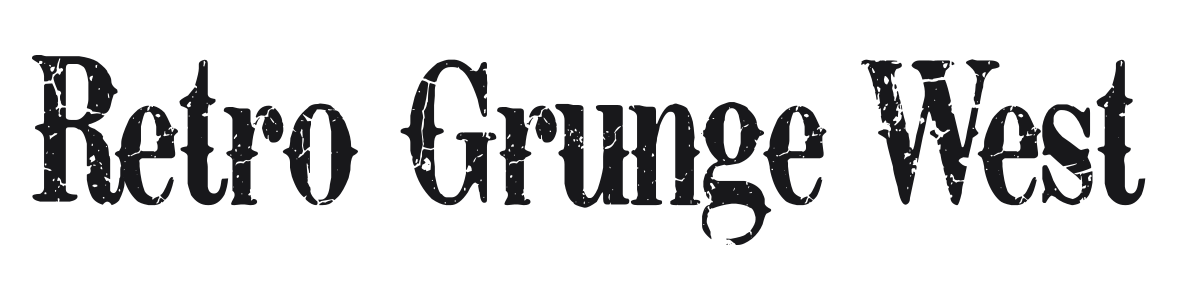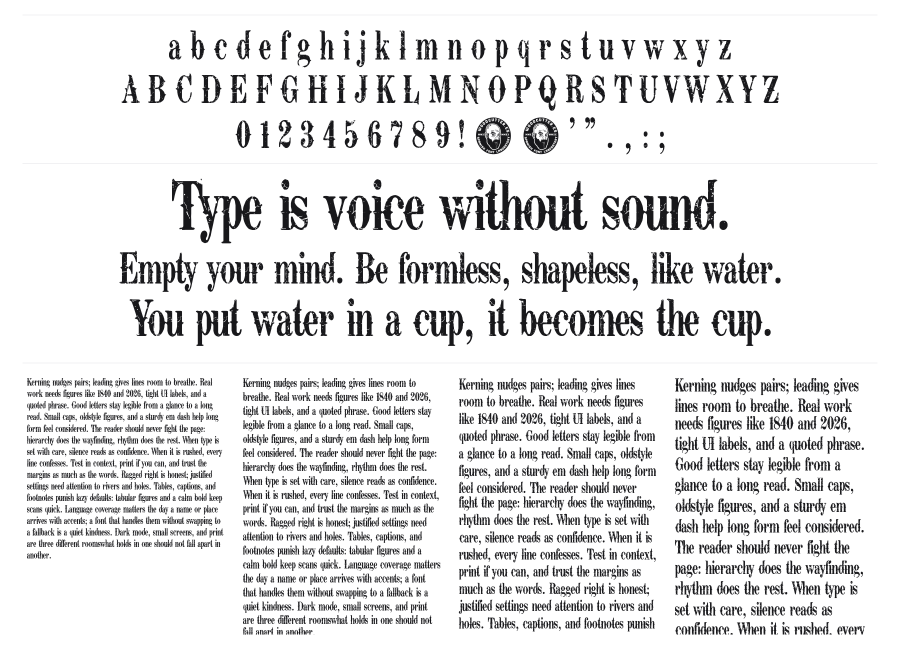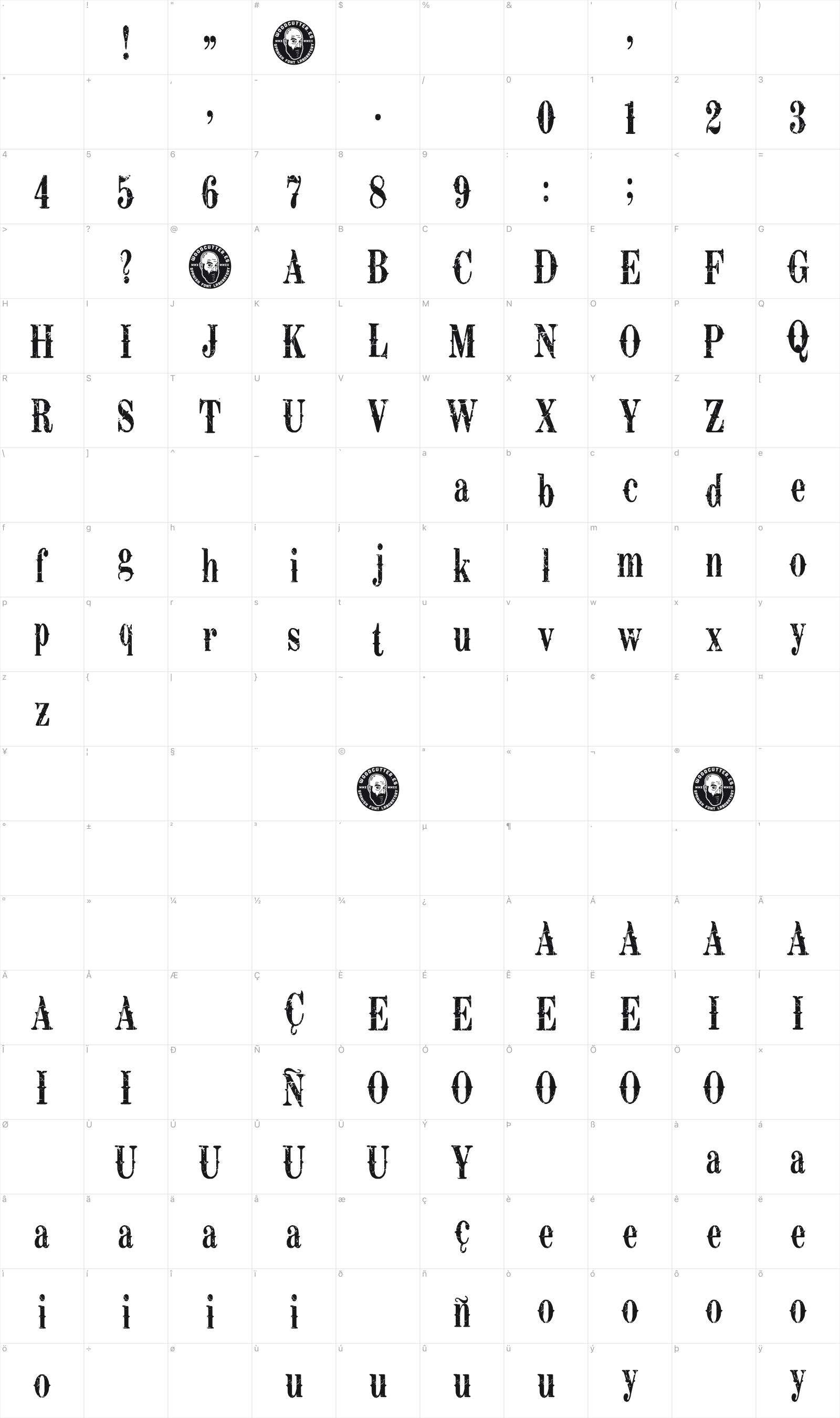
Retro Grunge West
Retro Grunge West is a bold condensed serif built on Victorian western display traditions, layered with heavy grunge distressing. The combination of extreme thick-thin stroke contrast and ink-worn erosion gives it an authentic aged-poster quality that digital replicas rarely achieve. Strong choice for band merch, whiskey labels, or any project that needs frontier grit.